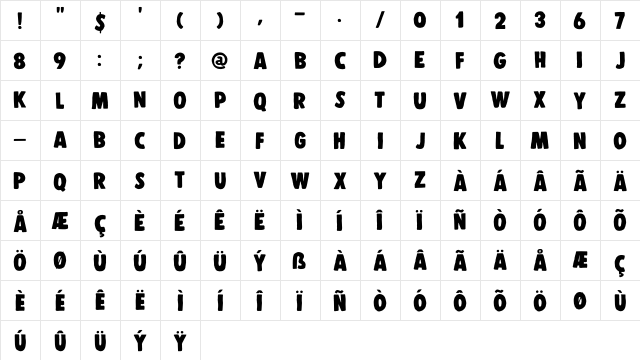
DK Display Patrol Regular
| Foundry | David Kerkhoff |
| Designer | David Kerkhoff |
Design Context for DK Display Patrol Typeface
DK Display Patrol is built around its visual character rather than neutral utility — its distinctive forms are designed to make an impression at display sizes.
Font Pairing: Pair with a clean neutral sans-serif for body copy to let DK Display Patrol's character lead without overwhelming the composition.
Pro Tip: Use DK Display Patrol exclusively at display sizes — it was designed to be seen, not read at length. Let a neutral companion handle body copy.